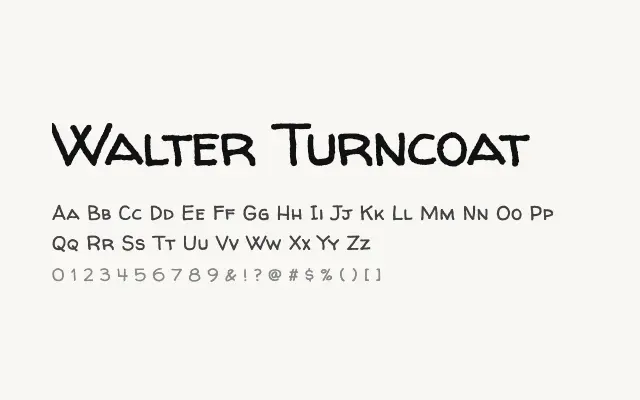
Walter Turncoat
A casual, handwritten script that captures the spontaneous feel of everyday ballpoint-pen writing.
Walter Turncoat's irregular letterforms and natural inconsistencies give it a genuine handmade authenticity that more polished scripts often lack. It suits informal editorial contexts, personal branding, and social media graphics where a human, approachable tone is needed. Its single weight and narrow application keep it firmly in specialist display territory.
Walter Turncoat mimics informal, slightly hurried handwriting with irregular letterforms and uneven baseline rhythm. It has a personal, diaristic quality reminiscent of notes written in ballpoint pen.